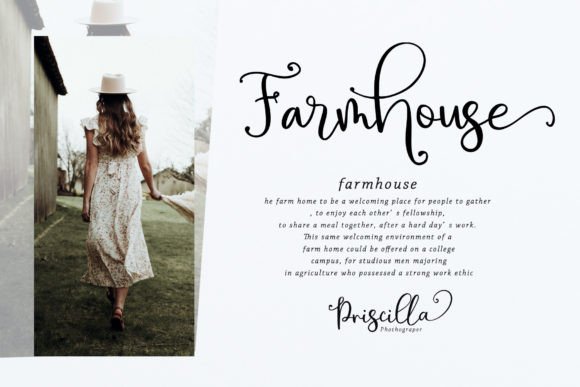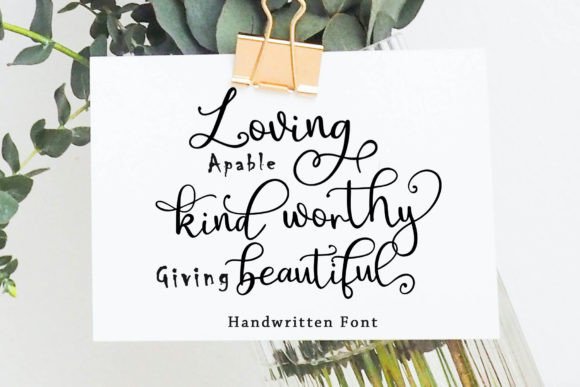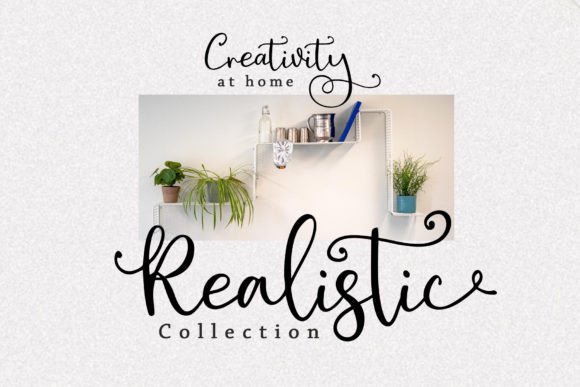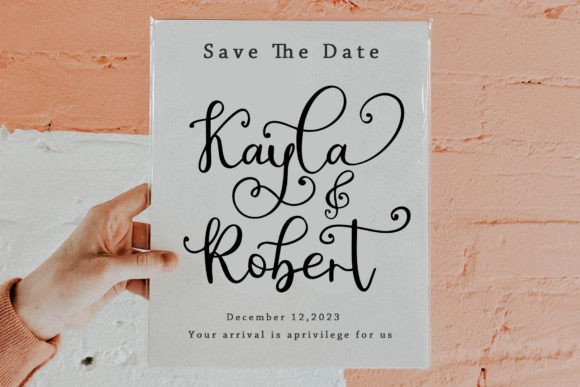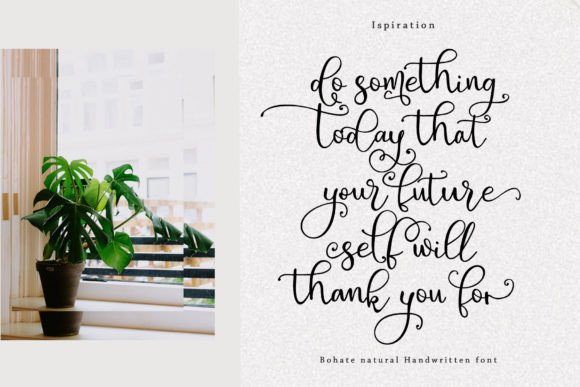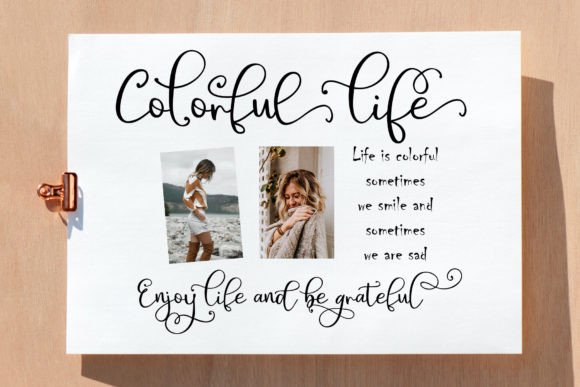
Introducing Bohate Font: The Sweet and Friendly Handwritten Font for Your Creative Projects
Are you a designer, crafter, or DIY enthusiast looking for a font that can add a personal touch to your projects? Look no further than Bohate Font, a sweet and friendly handwritten font that’s perfect for a wide range of designs. With its natural and unique style, Bohate Font is incredibly versatile and can be used for various creative projects, from digital designs to handmade crafts.
The Characteristics of Bohate Font
Bohate Font is a handwritten font that exudes warmth and friendliness. Its natural and unique style makes it stand out from other fonts, and its sweetness is sure to capture the hearts of your audience. The font’s flowing lines and curves create a sense of movement and fluidity, making it perfect for designs that require a touch of elegance and sophistication.
One of the best things about Bohate Font is its versatility. It can be used for a wide range of designs, from:
• Digital designs, such as social media graphics, blog posts, and website headers
• Handmade crafts, such as scrapbooking, card making, and journaling
• Print designs, such as brochures, flyers, and posters
• Packaging designs, such as labels and stickers
The Benefits of Using Bohate Font
So, why should you choose Bohate Font for your creative projects? Here are just a few benefits:
• Unique and eye-catching: Bohate Font’s natural and unique style makes it stand out from other fonts, ensuring that your designs will grab attention and leave a lasting impression.
• Versatile: Bohate Font can be used for a wide range of designs, making it a great addition to your font library.
• Easy to read: Despite its handwritten nature, Bohate Font is easy to read, making it perfect for designs that require a personal touch but still need to be legible.
• Customizable: Bohate Font can be customized to fit your design needs, allowing you to adjust the size, color, and style to suit your project.
Tips for Using Bohate Font
Here are a few tips for using Bohate Font in your creative projects:
• Pair it with other fonts: Bohate Font pairs well with other fonts, such as sans-serif fonts, to create a visually appealing design.
• Use it for headings and titles: Bohate Font is perfect for headings and titles, adding a touch of elegance and sophistication to your designs.
• Experiment with colors: Bohate Font looks great in a variety of colors, so don’t be afraid to experiment and find the perfect hue for your design.
In conclusion, Bohate Font is a sweet and friendly handwritten font that’s perfect for designers, crafters, and DIY enthusiasts. Its natural and unique style makes it incredibly versatile, and its ease of use makes it a great addition to your font library. Whether you’re creating digital designs, handmade crafts, or print designs, Bohate Font is sure to add a personal touch and make your projects stand out.